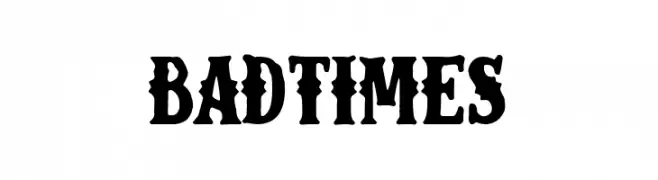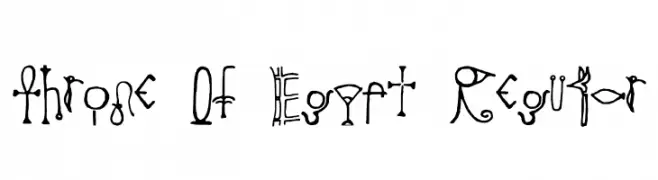
Ornamental font based on embroidery motifs.
Ornamental geometric font with Islamic art influences.
An intricate decorative font with elaborate ornamental designs.
Ornamental vector symbols with an ancient, mystical style.
An ornamental font inspired by Egyptian hieroglyphs, rich in historical and mystical elements.
A decorative and bold font with intricate, ornamental details.
Highly decorative ornamental glyphs for borders and embellishments.
A bold, vintage-style font with ornamental serifs and a rugged, old-western appearance.
Ornate stencil-style decorative glyphs with bold, intricate designs.
Ornamental dingbat font with mandala and floral motifs.